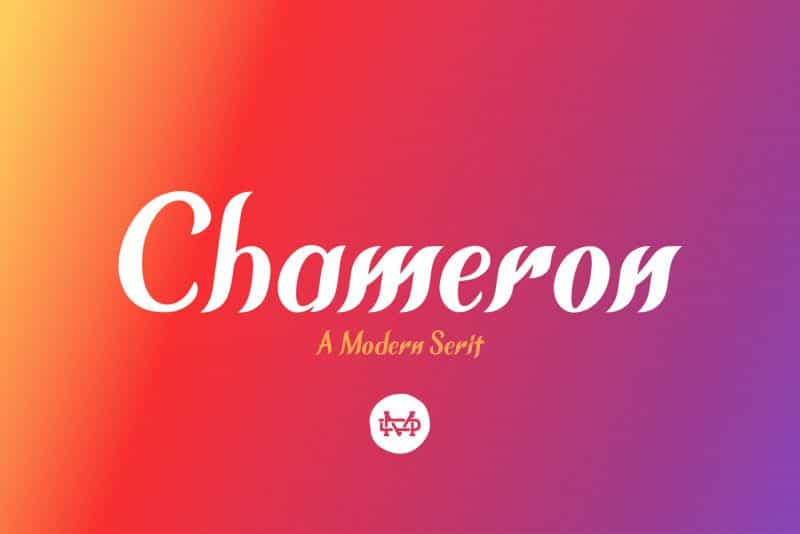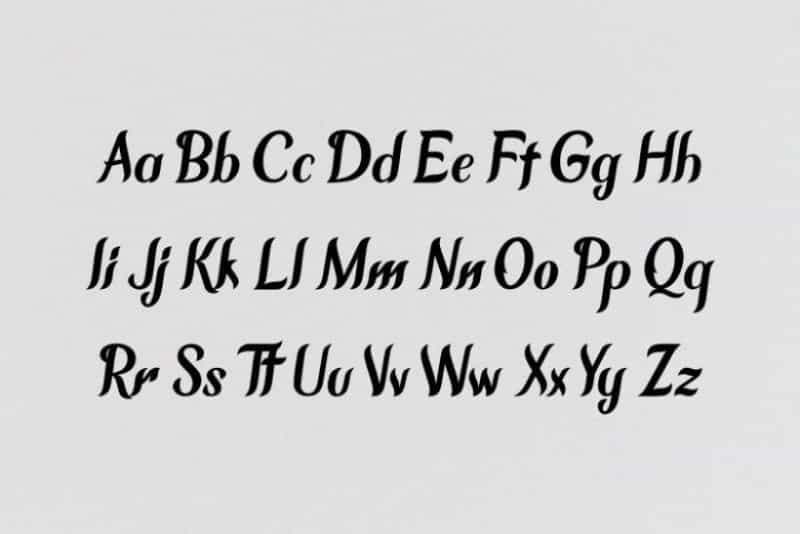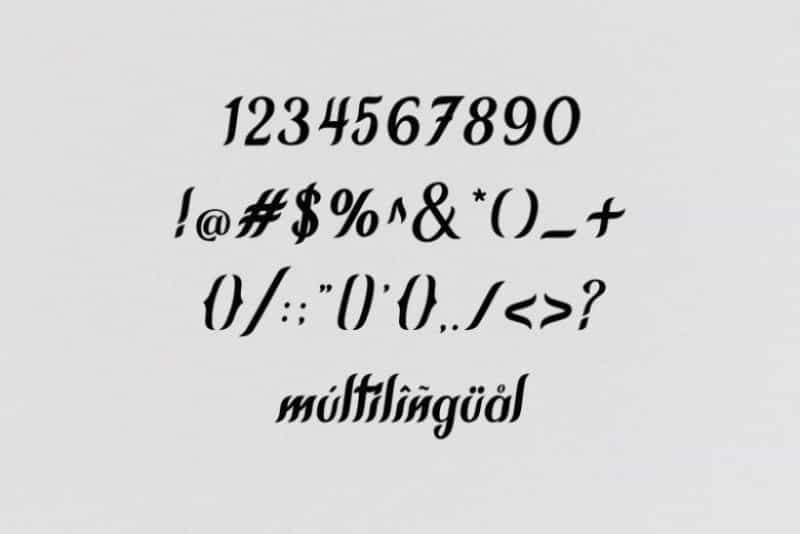
Discover Chameron Typeface, part of the Sans Serif Serif collection—a versatile and unique font perfect for adding a personal touch to your projects. Download it for free and enjoy crafting designs with style, from invitations to social media posts. This font is available exclusively for personal use, giving you the freedom to create without limits. Unlock your creativity with Chameron Typeface today!